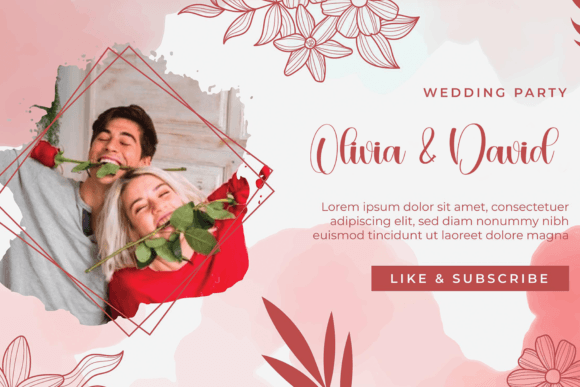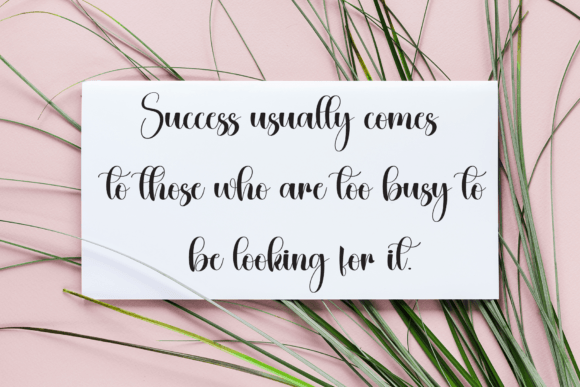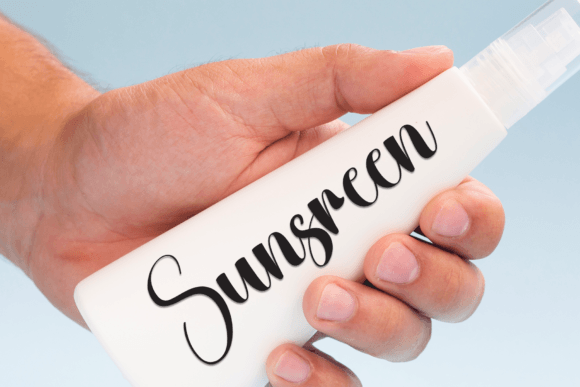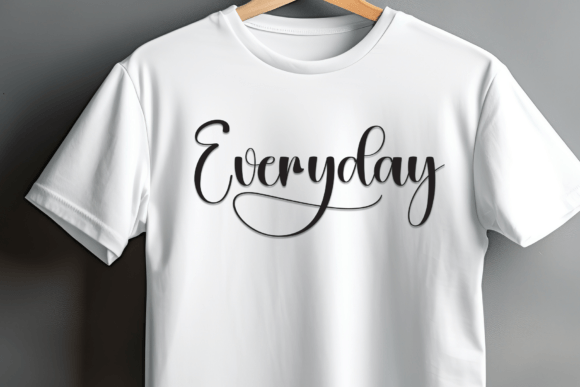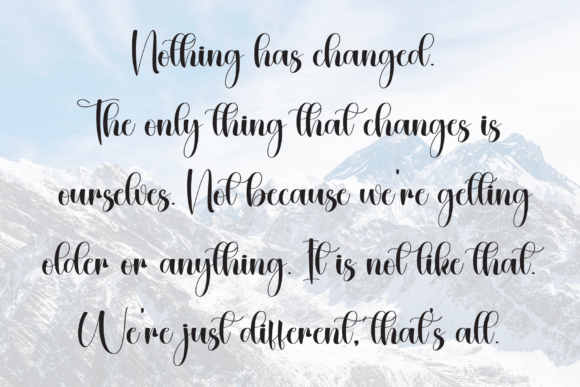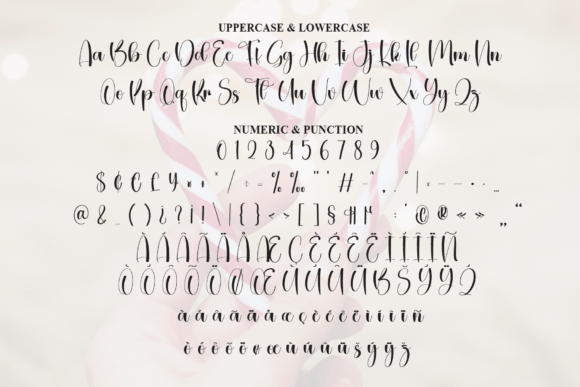
Candycane Font: The Sweetest Addition to Your Design Projects
Are you looking for a font that embodies the perfect blend of elegance and playfulness? Look no further than the Candycane font. This charming script font is designed to add a touch of sophistication and whimsy to your designs, making it ideal for invitations, cards, and creative projects.
The Characteristics of Candycane Font
Candycane is a script font that boasts smooth, flowing letters that dance across the page. Its elegant curves and fluid lines give it a refined feel, while its playful undertones make it perfect for adding a personal touch to your designs. The font’s unique characteristics include:
- Smooth, flowing letters that create a sense of movement and fluidity
- Elegant curves that add a touch of sophistication to your designs
- Playful undertones that make it perfect for creative projects
- A personal, handwritten feel that adds a touch of warmth to your designs
Uses for Candycane Font
Candycane font is incredibly versatile and can be used for a wide range of design projects. Some of the most popular uses for this font include:
- Invitations: Whether you’re planning a wedding, birthday party, or baby shower, Candycane font is the perfect choice for creating beautiful, elegant invitations.
- Cards: Add a personal touch to your greeting cards, thank-you cards, and postcards with the charming Candycane font.
- Creative Projects: From scrapbooking to crafting, Candycane font is the perfect addition to any creative project. Use it to add a touch of elegance and whimsy to your designs.
- Branding: Candycane font can also be used for branding purposes, such as creating logos, packaging, and marketing materials.
Tips for Using Candycane Font
To get the most out of Candycane font, here are a few tips to keep in mind:
- Use it sparingly: While Candycane font is beautiful, it can be overwhelming if used too much. Use it sparingly to add a touch of elegance and whimsy to your designs.
- Pair it with other fonts: Candycane font pairs well with other fonts, such as serif and sans-serif fonts. Experiment with different font combinations to find the perfect look for your design.
- Experiment with colors: Candycane font looks beautiful in a variety of colors. Experiment with different colors and textures to find the perfect look for your design.
In conclusion, Candycane font is a charming script font that is perfect for adding a touch of elegance and whimsy to your designs. Its smooth, flowing letters and playful undertones make it ideal for invitations, cards, and creative projects. With its versatility and range of uses, Candycane font is sure to become a favorite among designers and crafters alike.